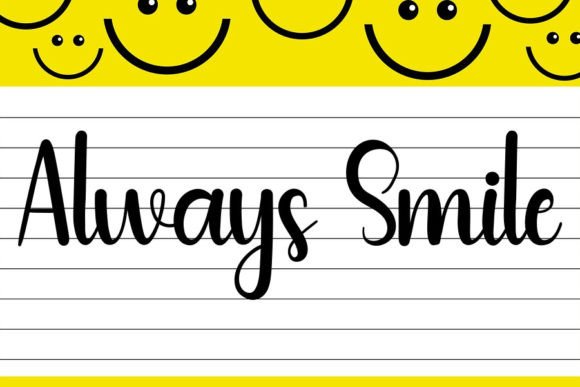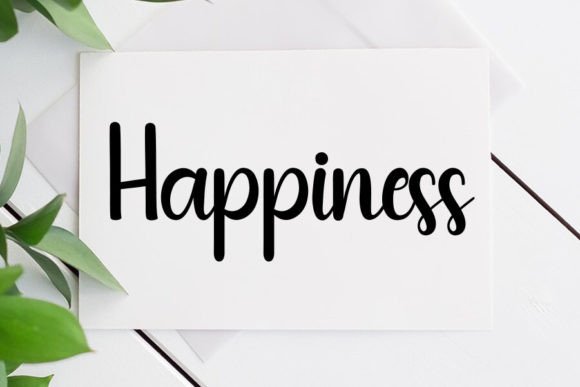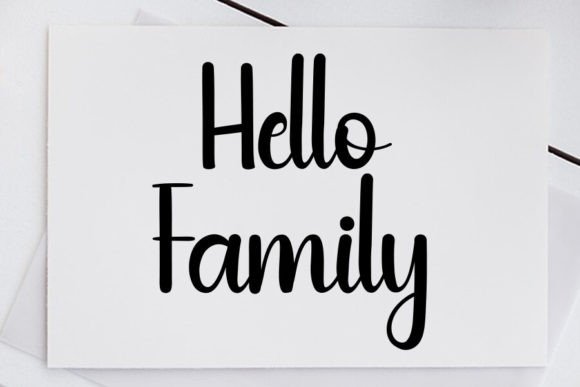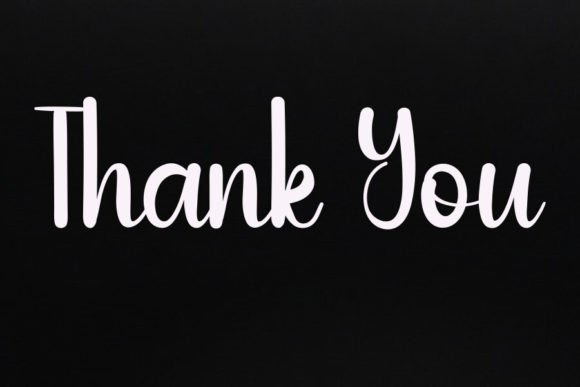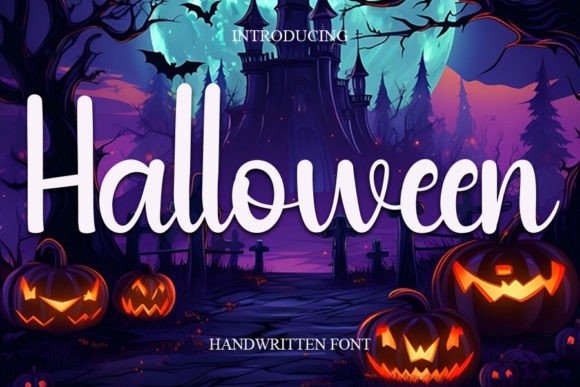
Introducing Halloween Font: The Ultimate Go-To Font for All Occasions
Are you tired of using the same old fonts for your crafts, digital designs, presentations, and greeting cards? Look no further! Halloween Font is a fun and friendly handwritten font that’s perfect for adding a touch of personality to any project. In this article, we’ll dive into the world of Halloween Font and explore its features, benefits, and uses.
What is Halloween Font?
Halloween Font is a carefully crafted handwritten font that’s designed to bring a smile to your face. Its playful and friendly style makes it perfect for a wide range of applications, from spooky Halloween designs to heartwarming greeting cards. Whether you’re a designer, crafter, or DIY enthusiast, Halloween Font is sure to become your new favorite go-to font.
Features of Halloween Font
- Handwritten style: Halloween Font boasts a beautiful, handwritten style that’s both personal and approachable.
- Versatile: This font is perfect for a wide range of projects, including crafts, digital designs, presentations, and greeting cards.
- Easy to read: Despite its playful style, Halloween Font is easy to read and understand, making it perfect for body text and headings.
Benefits of Using Halloween Font
So, why should you choose Halloween Font for your next project? Here are just a few benefits of using this amazing font:
- Adds personality to your designs: Halloween Font adds a touch of personality to your designs, making them stand out from the crowd.
- Perfect for creative projects: Whether you’re working on a craft, digital design, or presentation, Halloween Font is the perfect choice for adding a creative touch.
- Great for greeting cards and invitations: This font is perfect for creating heartwarming greeting cards and invitations that will make your loved ones feel special.
Uses of Halloween Font
So, what can you use Halloween Font for? The possibilities are endless! Here are a few ideas to get you started:
- Crafts: Use Halloween Font to add a personal touch to your crafts, such as scrapbooking, card making, and DIY projects.
- Digital designs: Add Halloween Font to your digital designs, such as social media graphics, blog posts, and website headers.
- Presentations: Use Halloween Font to add a touch of personality to your presentations, making them more engaging and fun.
- Greeting cards and invitations: Create heartwarming greeting cards and invitations that will make your loved ones feel special.
Tips for Using Halloween Font
Here are a few tips for using Halloween Font to get the most out of this amazing font:
- Experiment with different colors: Try pairing Halloween Font with different colors to create unique and eye-catching designs.
- Mix and match with other fonts: Combine Halloween Font with other fonts to create interesting and dynamic designs.
- Use it for headings and body text: Use Halloween Font for both headings and body text to create a cohesive and visually appealing design.
In conclusion, Halloween Font is a fun and friendly handwritten font that’s perfect for adding a touch of personality to any project. Its versatile style, ease of use, and compatibility with various devices make it a great choice for designers, crafters, and DIY enthusiasts. Whether you’re working on a craft, digital design, presentation, or greeting card, Halloween Font is sure to become your new favorite go-to font.